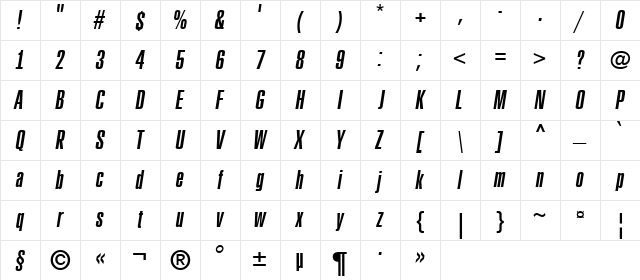
a_RubricaXtCn Italic Free Font
a_RubricaXtCn Italic
Design Context for a_RubricaXtCn
a_RubricaXtCn is a composed and adaptable typeface that performs quietly and consistently across a wide range of design contexts. The slanted form adds forward momentum and visual energy.
Pro Tip: Use a_RubricaXtCn for emphasis, pull quotes, and subheadings where its slanted energy can add rhythm to the layout.